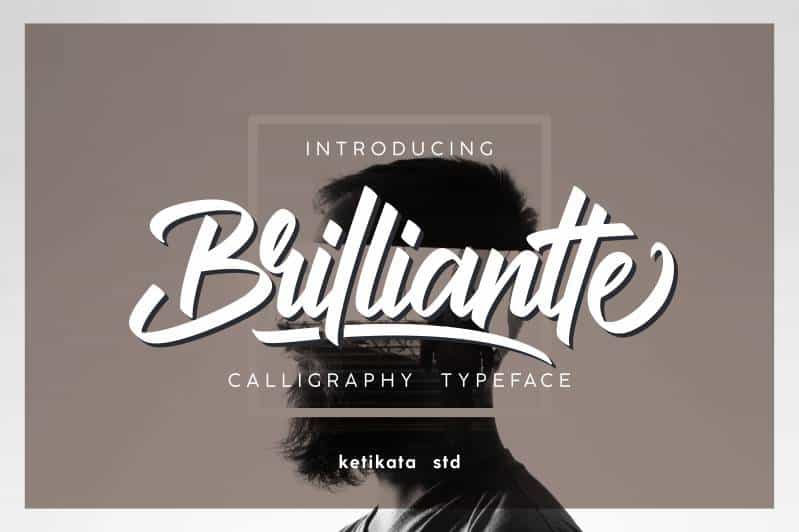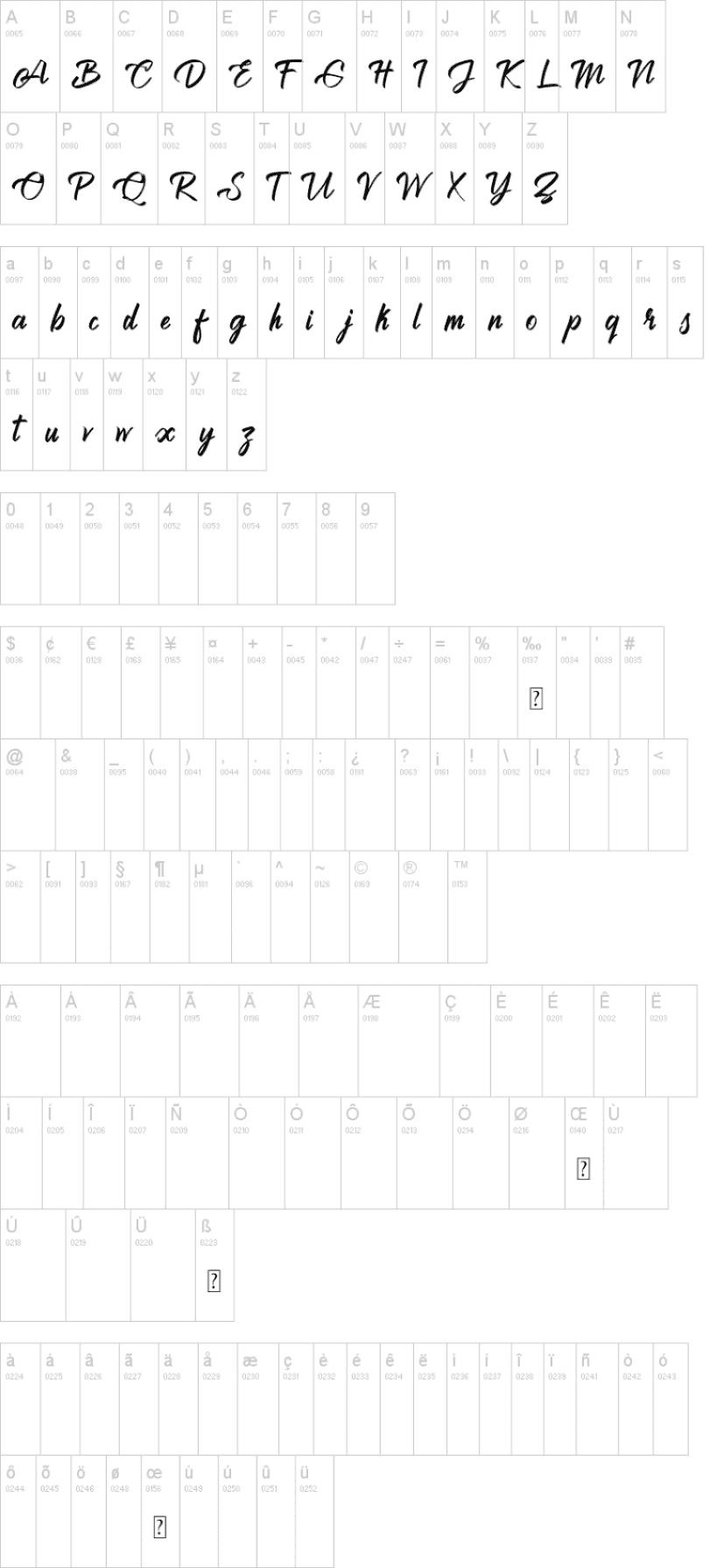
Discover Brilliantte Font, part of the Calligraphy collection—a versatile and unique font perfect for adding a personal touch to your projects. Download it for free and enjoy crafting designs with style, from invitations to social media posts. This font is available exclusively for personal use, giving you the freedom to create without limits. Unlock your creativity with Brilliantte Font today!
Brilliantte is a calligraphic typeface font, which was created by ketikata std and is free for download and personal use. The free edition with all the capital and small case letters and a few special characters.